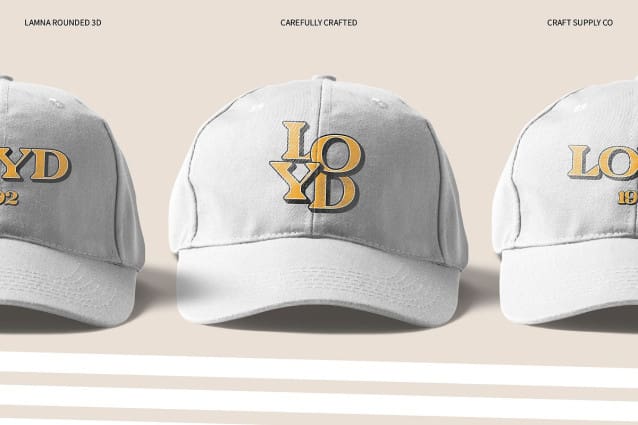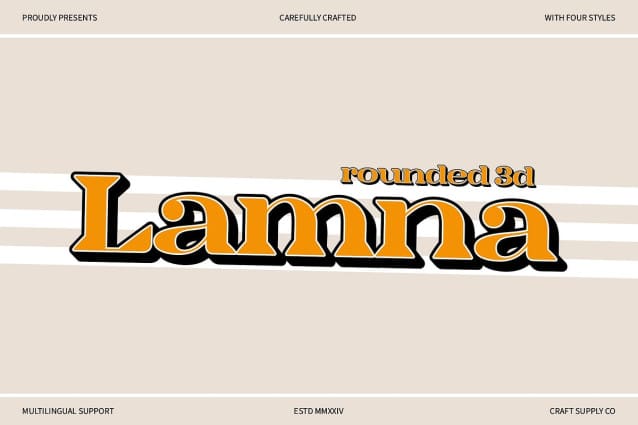
Lamna Rounded 3D Font
Lamna Rounded 3D Font is a striking serif font that blends the elegance of wide, rounded serifs with bold 3D effects, delivering a unique combination of nostalgic 90s retro style and contemporary flair. The wide, rounded letterforms evoke a sense of warmth and sophistication, while the 3D effect adds depth and a modern twist, making it perfect for designs that need to stand out with a stylish, vintage-inspired appeal.
Sophisticated and Nostalgic Appeal Inspired by the elegance and charm of 90s design, Lamna Rounded 3D exudes a sophisticated, yet playful vibe. Its clean, rounded forms and bold lines create a balanced, approachable look, ideal for branding and design projects that aim to evoke feelings of nostalgia while still maintaining a fresh and contemporary appearance. The 3D effect brings an extra dimension, enhancing the font’s visual impact without overpowering its elegant structure.
Perfect for Vintage-Inspired Designs Whether you’re creating stylish headlines, nostalgic branding, or promotional materials, Lamna Rounded 3D provides the perfect blend of vintage inspiration and modern sophistication. Its retro aesthetic and bold depth make it a standout choice for projects that want to evoke a sense of timelessness while still appealing to a modern audience.